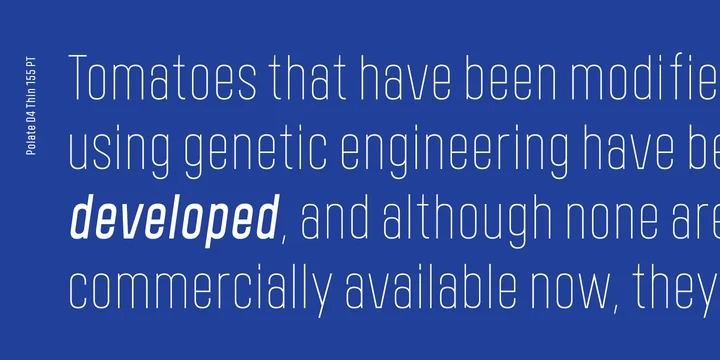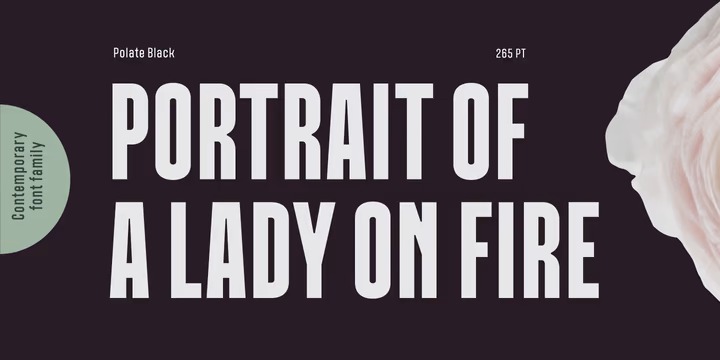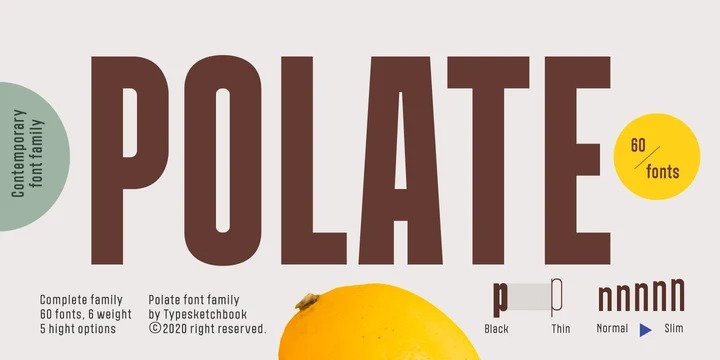
Polate Sans Serif Font
This font is the sans serif family created for people who love well balanced kerning and weight. It’s designed and shared by Typesketchbook . Polate has such a big abundance of contrast, styles, weights, X-Hight. Typesketchbook consists of a very usable, clean and modern sans typeface. The complete Polate type family includes 6 weights with italic and 5 X-Hights versions for each of them all in all 60 fonts for a multifunctional usage, especially for cooperative work, such as website, magazine, editorial, publishing , as well as packaging.